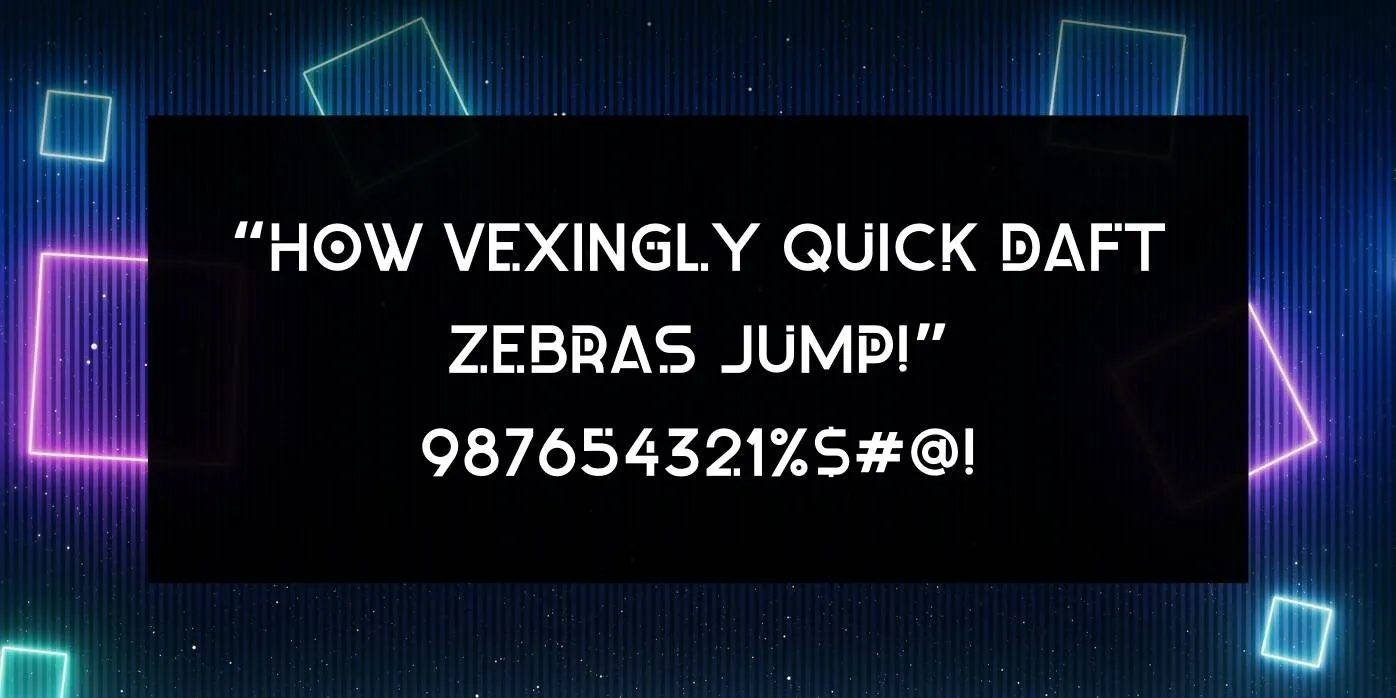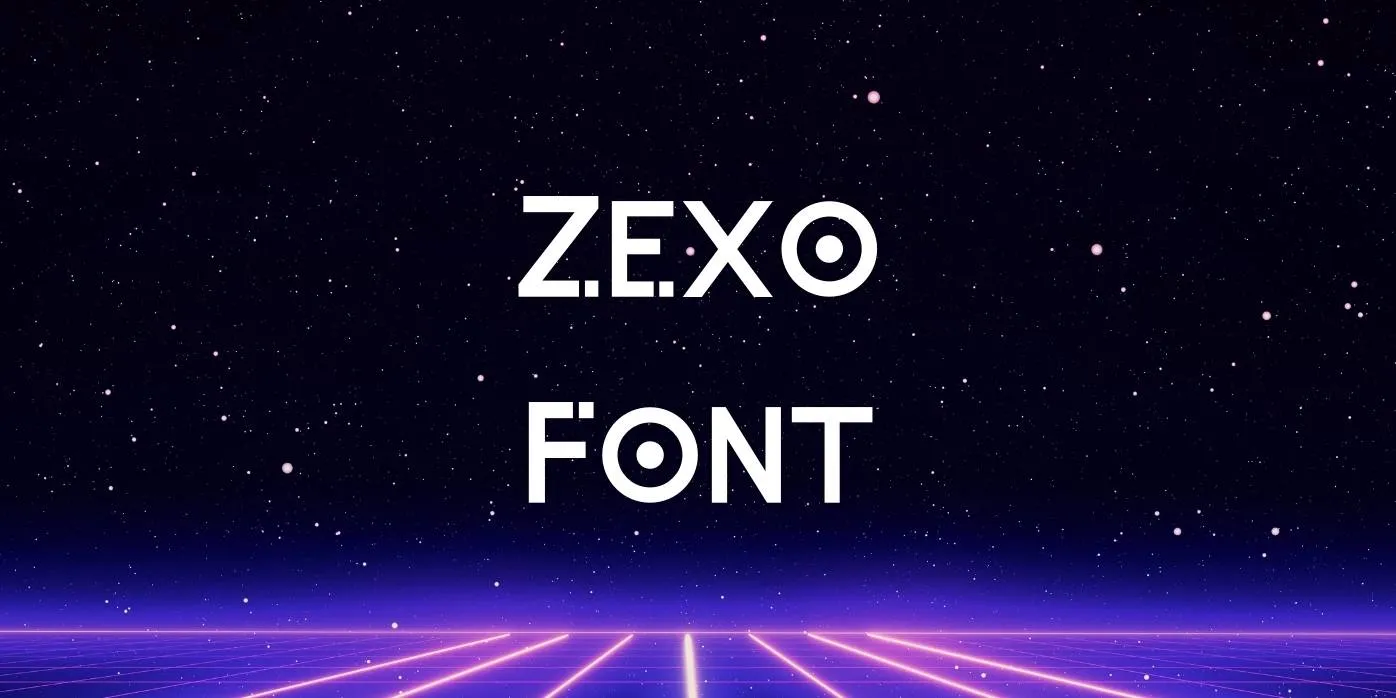
Zexo Font
Another modern and stylish sans-serif typeface is named ZEXO Font. That font is elegant and smart looking. In the Zexo font family, There are 4 styles available. And that typeface is designed by Khurasan on 12 July 2019.
The download contains 5081 times. That font contains beautiful 92 different designs available in characters. And they support different languages, Such as English and Zulu, etc. That typeface is perfect for Poster designing, Cover photos, large-scale design, Headers, and T-shirt Designing.  This font is very close to the berlingske serif font.
The designer used that typeface especially for the Billboards design, Using that font for the brand design so the large banner looks perfect. If you used it in Canva or any other designing platform like Photoshop, illustrator, etc. So you can easily download and use it without any difficulty. And that typeface Supported Different languages.
In this typeface, there are 4 different styles available and 92 different designs available in characters. Which font is similar to Zexo Font? There are different alternatives available for that type of font but some of them that are most similar to that are Goshen Modern font, Gutter’s font, etc. Is Zexo Font a google font?